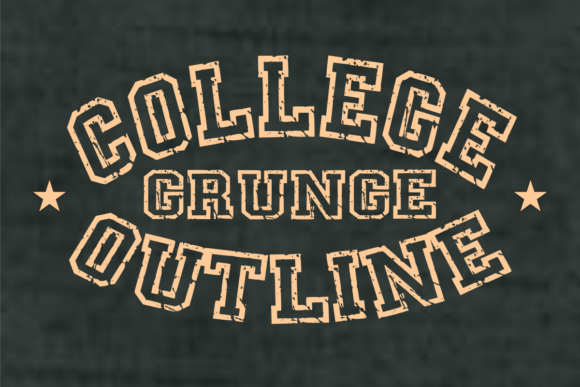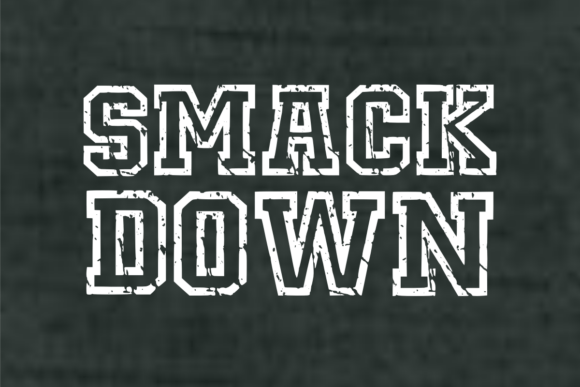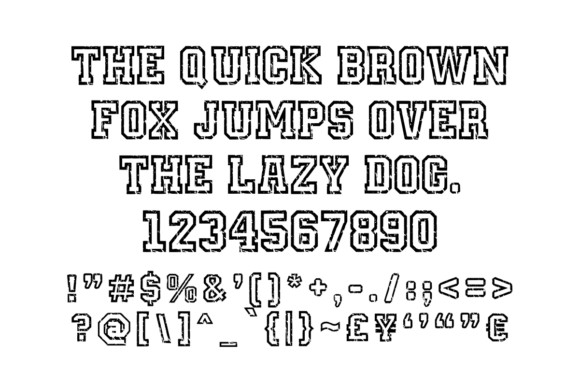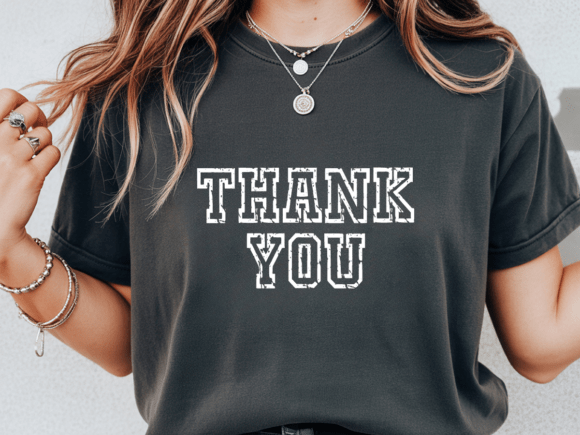
Introduction to Rough Jersey Font Font
Fonts play a crucial role in design, and the Rough Jersey Font font is a typeface that brings both character and versatility to any project. Whether you’re working on a branding project, a website, or a print design, the Rough Jersey Font font offers a unique style that can elevate your work.
π Bring the spirit of the game to life with βRough Jerseyβ.
π Rough Jersey is a bold, collegiate-style display font featuring a unique distressed texture Inspired by vintage sports apparel and classic varsity lettering, this font adds an authentic, rugged touch to any project.
Key Features of Rough Jersey Font Font
Why Choose Rough Jersey Font Font?
The Rough Jersey Font font is more than just a typeface β it’s a design tool that helps you communicate your message with style and clarity. Its unique character set and versatile design make it suitable for a wide range of applications, from elegant invitations to bold headlines.
With its carefully crafted letterforms and balanced proportions, the Rough Jersey Font font ensures readability and visual appeal across all mediums.
What makes Rough Jersey Font font special?
The Rough Jersey Font font stands out with its unique design, exceptional readability, and versatility across various design applications.